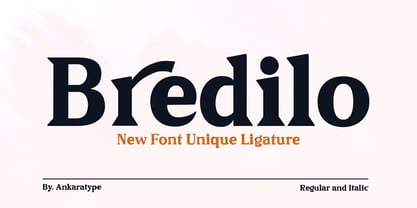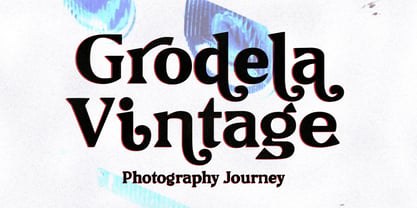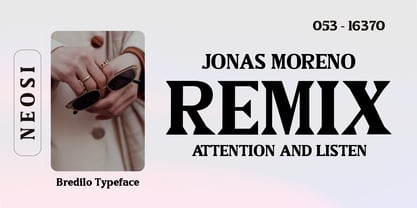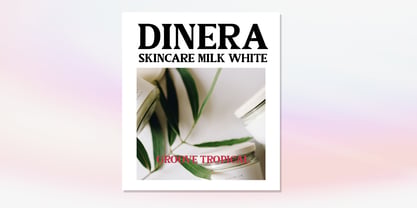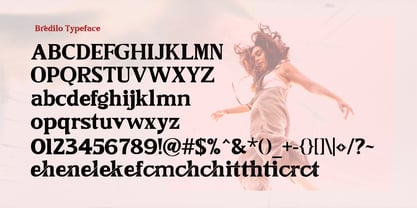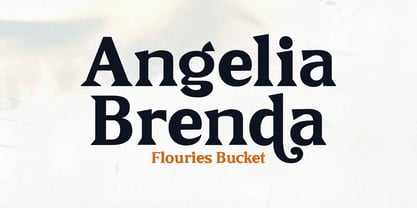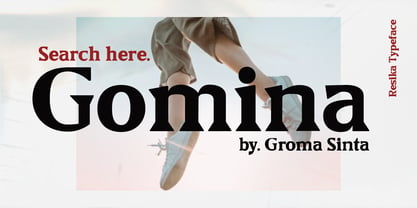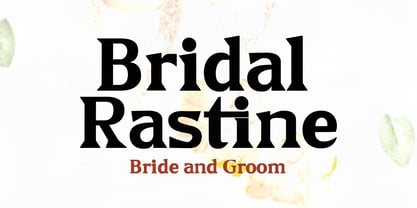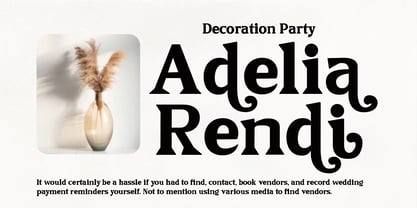
Bredilo
The Bredilo Font Family was designed by Sayuti Yuti and published by Saytype. Bredilo contains 2 styles and family package options. More about this family
Bredilo is to be perfect for logos, branding, greetings, social media themes and wedding invitation designs. It is also a great typeface for titles due to its smooth design and eye-catching appearance. Let Bredilo be your new creative friend—adding an expressive touch to your next big idea. Have questions or feedback? We're just a message away and always happy to help! If you have any questions don't hesitate to contact me! Thank you,